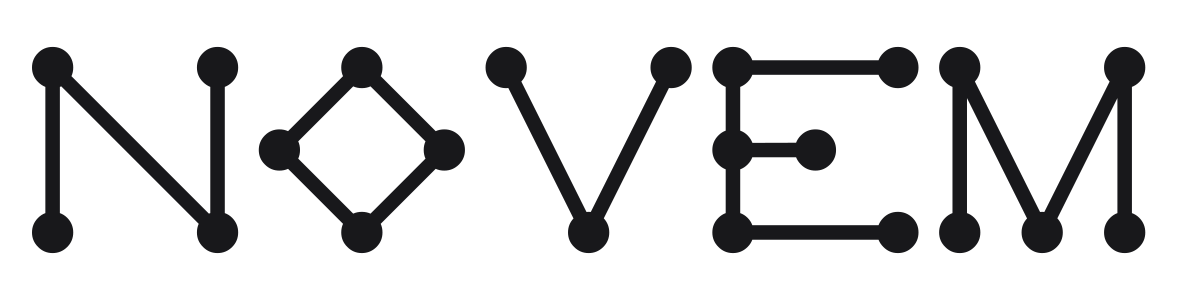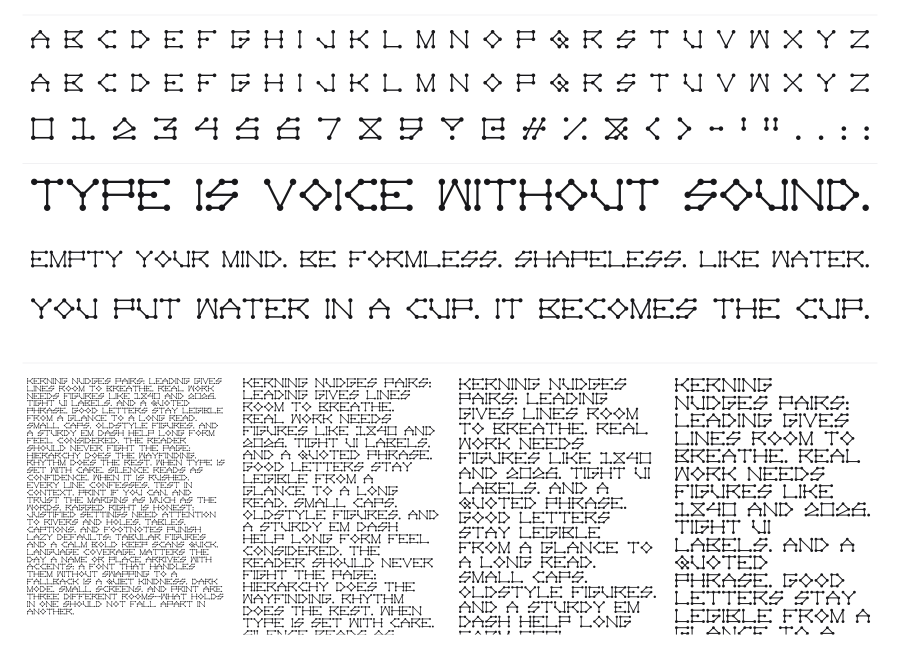
Novem
Novem is a geometric display font built entirely from ruled segments and circular dot nodes, like a circuit schematic rendered as typography. Every junction and terminal is marked by the same bold dot, unifying the design into something between a constellation map and a PCB trace. It works at large sizes where the structural logic of the design reads clearly.